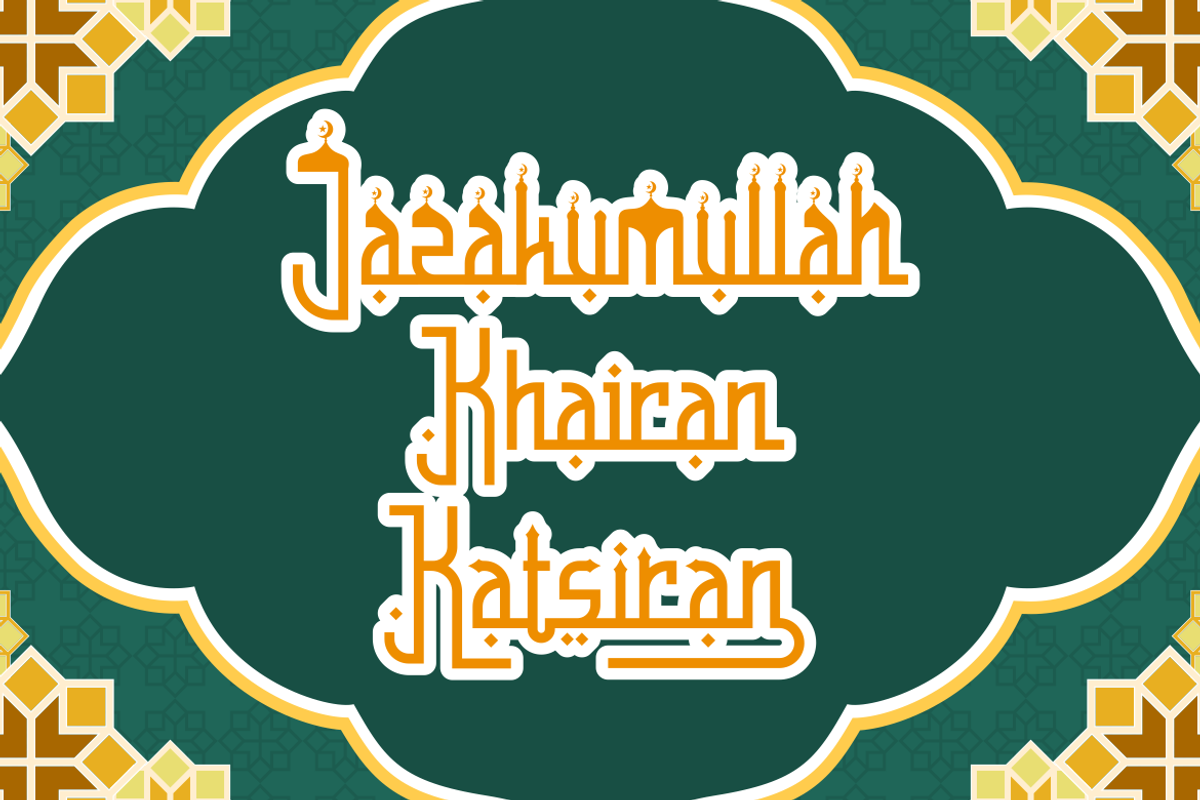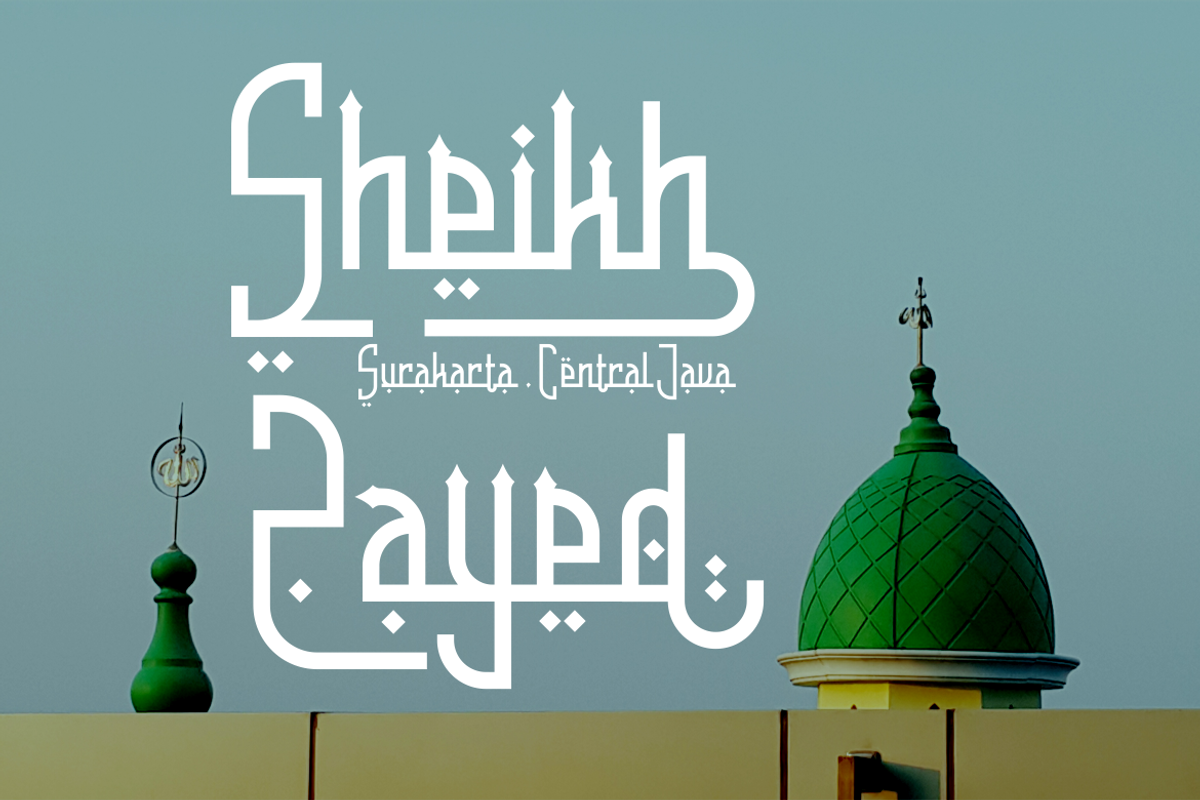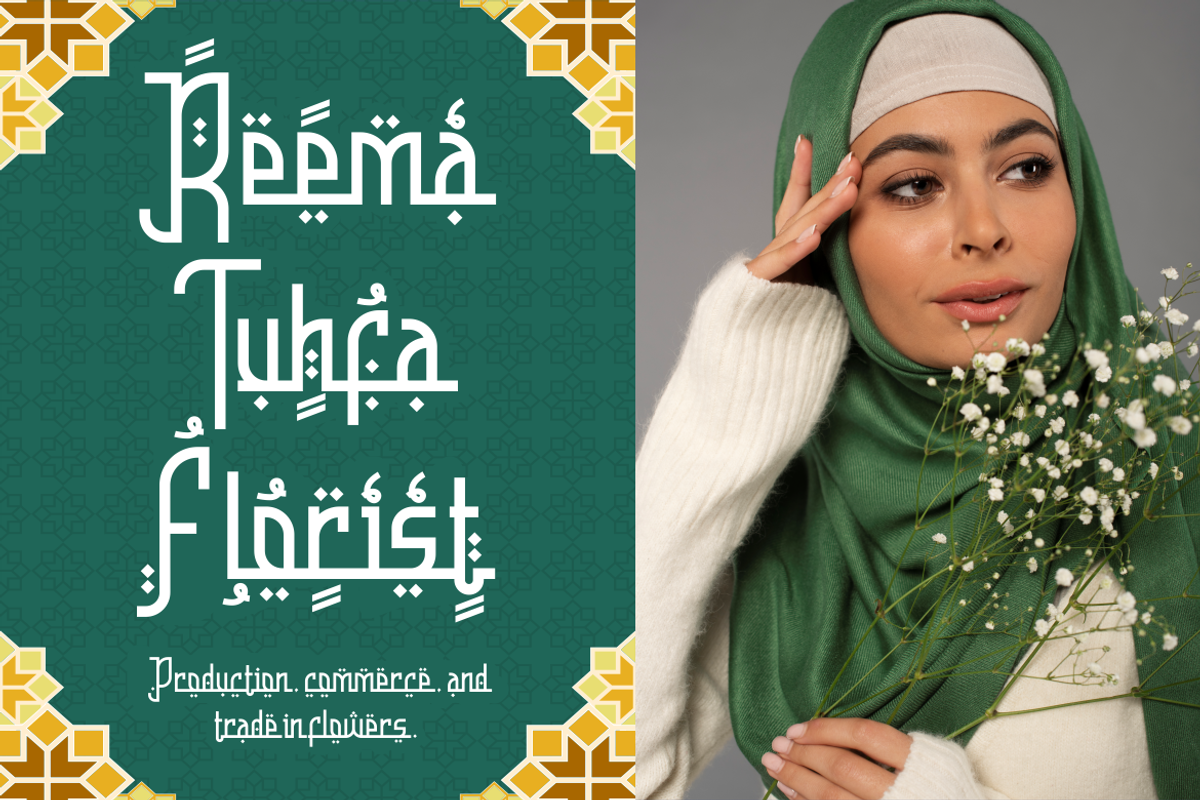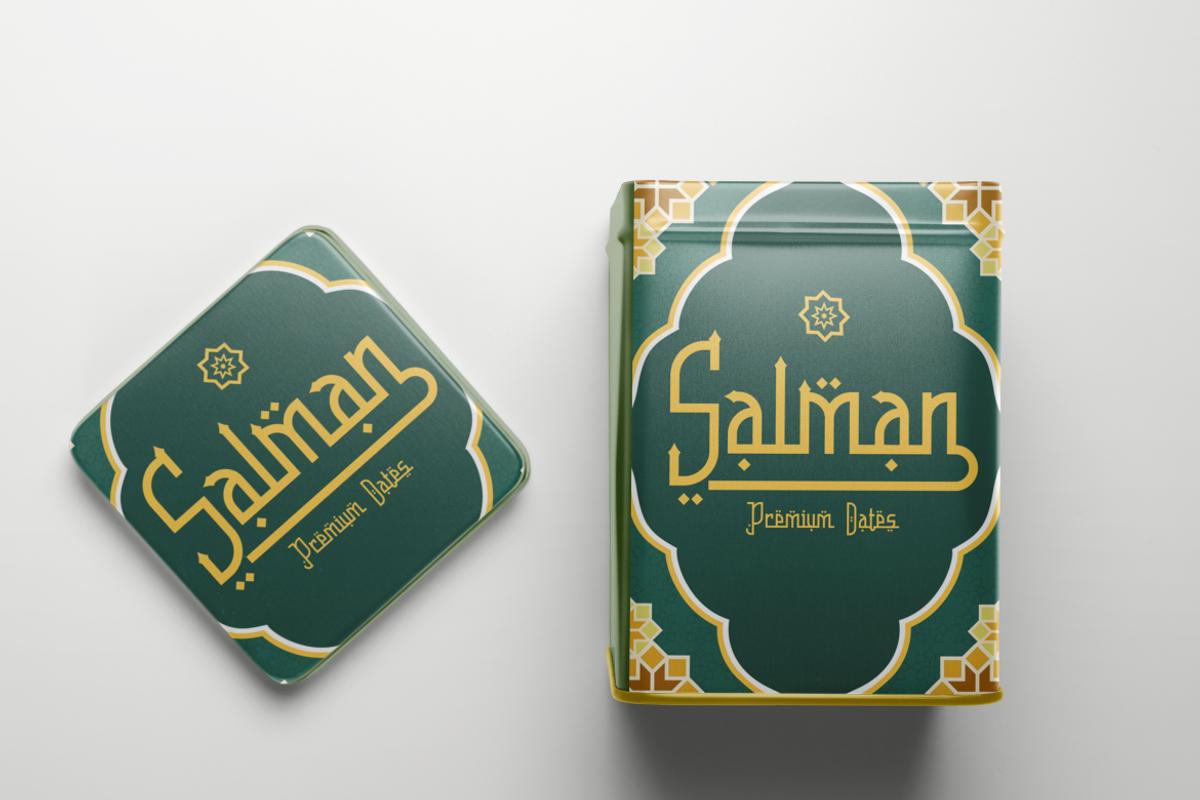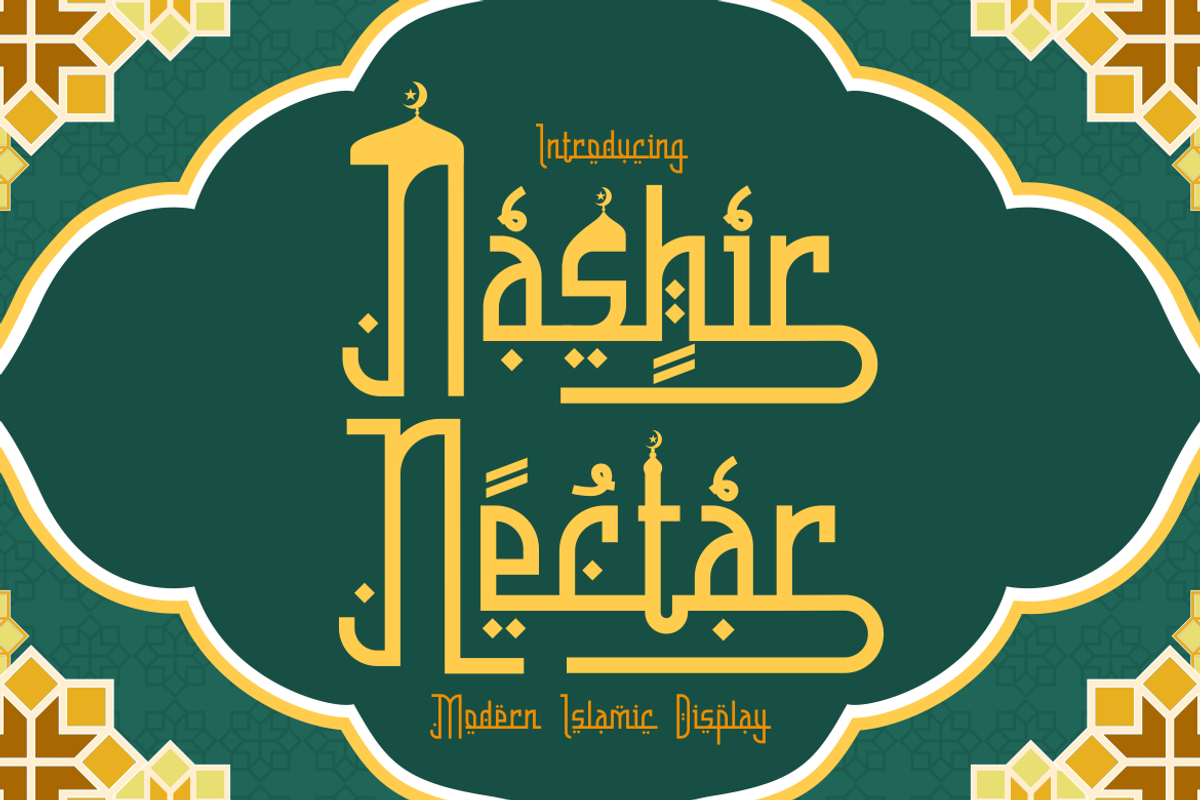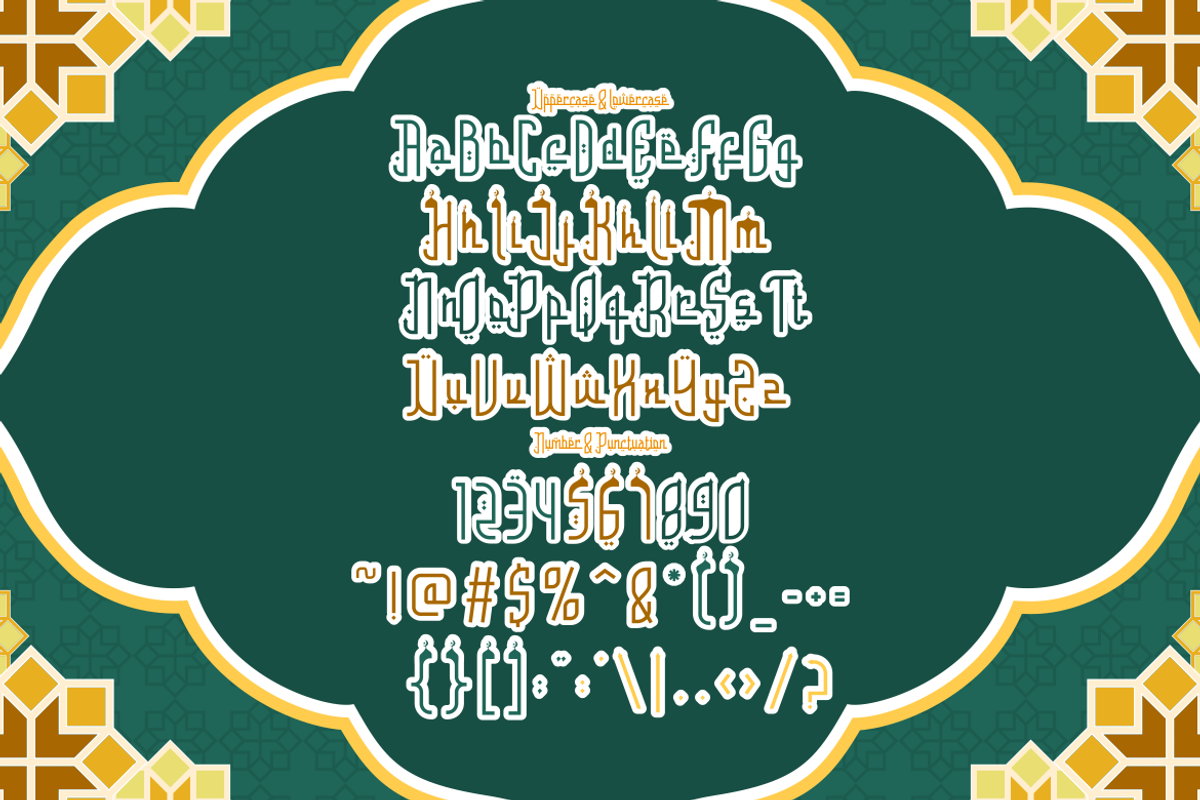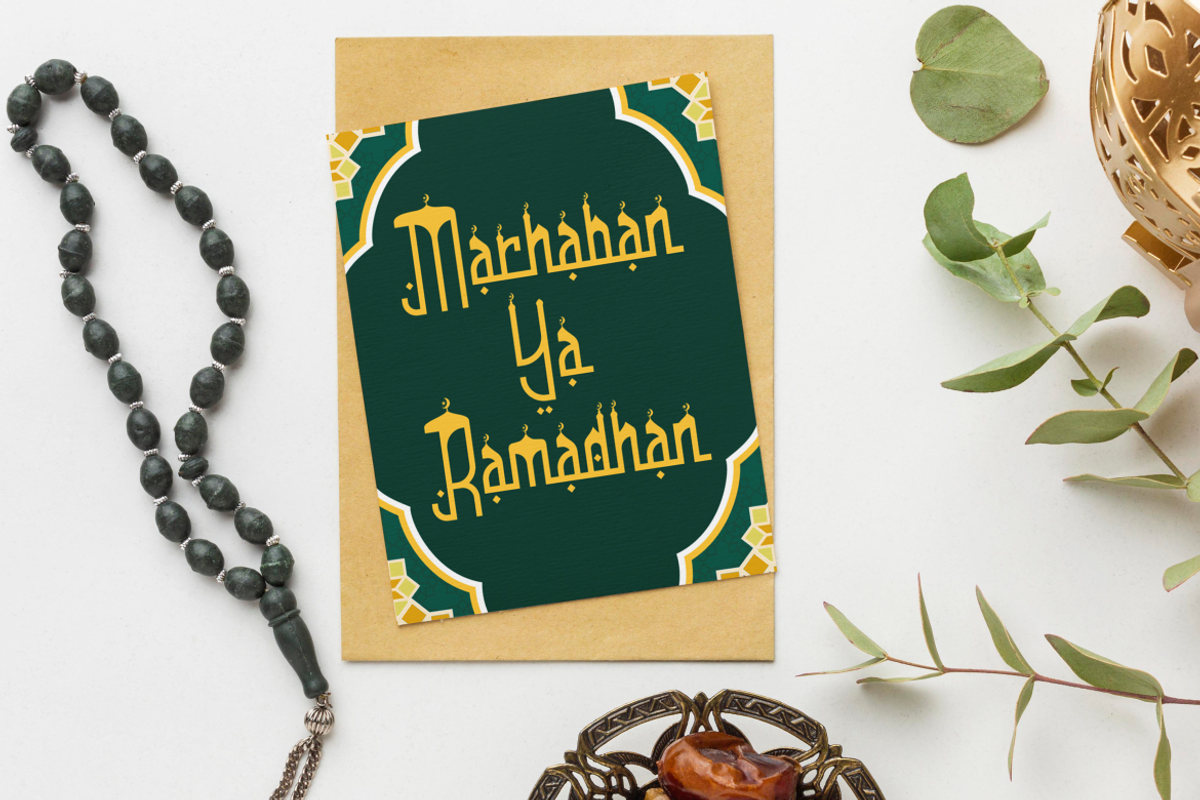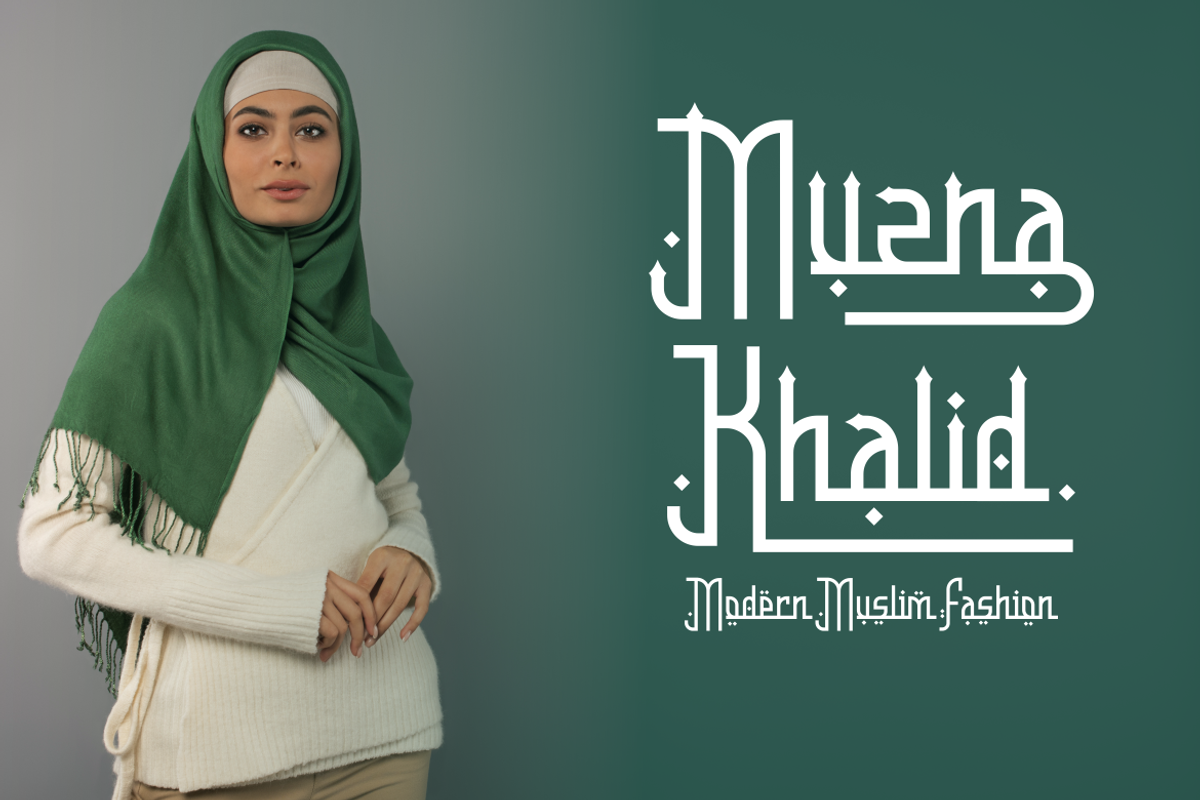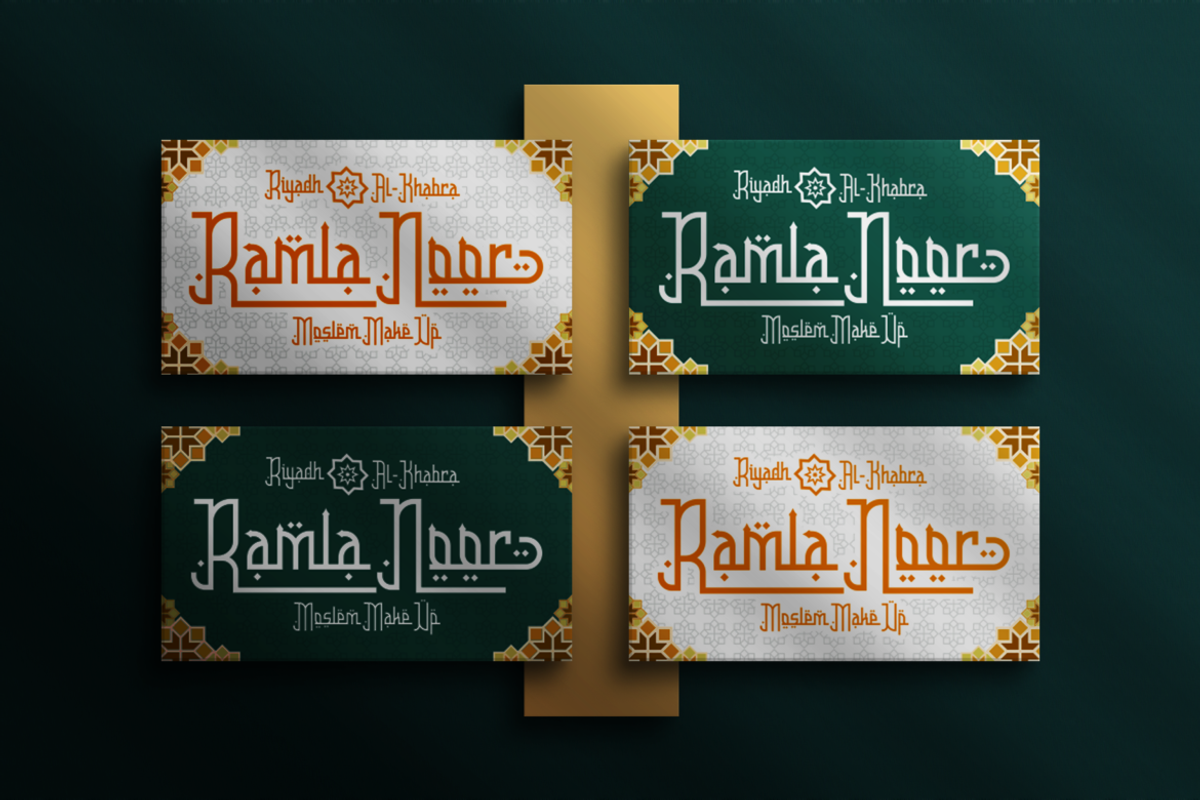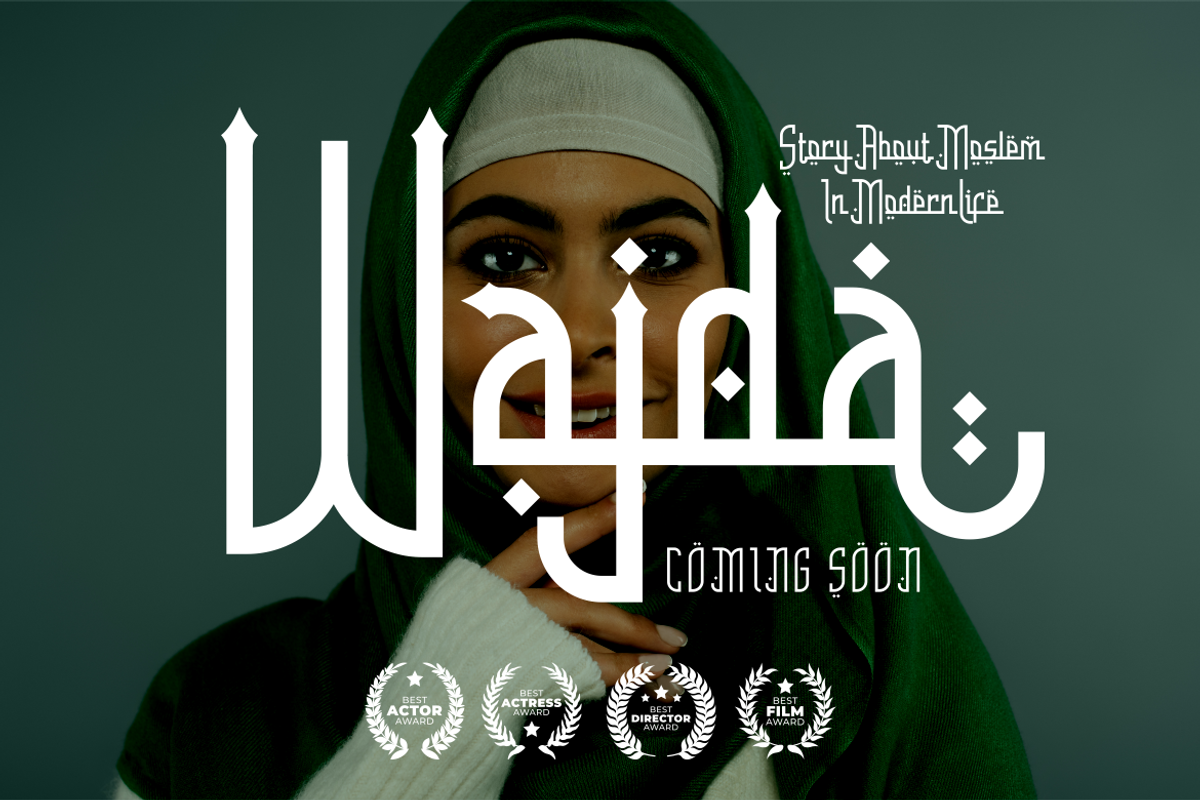
Nashir Nectar - Modern Islamic Font
Discover the allure of Nashir Nectar, a Modern Islamic Display Font that captures the essence of Arabic artistry and modern design. This font is a harmonious blend of traditional Arabic calligraphy and contemporary flair, making it an ideal choice for a wide range of creative projects. Nashir Nectar’s elongated, fluid characters are a nod to the rich heritage of Islamic script, while its clean lines and modern finish provide a fresh, updated look that’s perfect for today’s design landscape.
Whether you’re designing a logo that stands out, branding materials that tell a story, or crafting an invitation that sets the tone for an event, Nashir Nectar offers versatility and style. It’s also perfectly suited for packaging, posters, business titles, greeting cards, stickers, children’s books, and magazines. The font’s unique character shapes and display qualities ensure that your message is not just seen, but felt, imbuing your work with a sense of culture and sophistication.